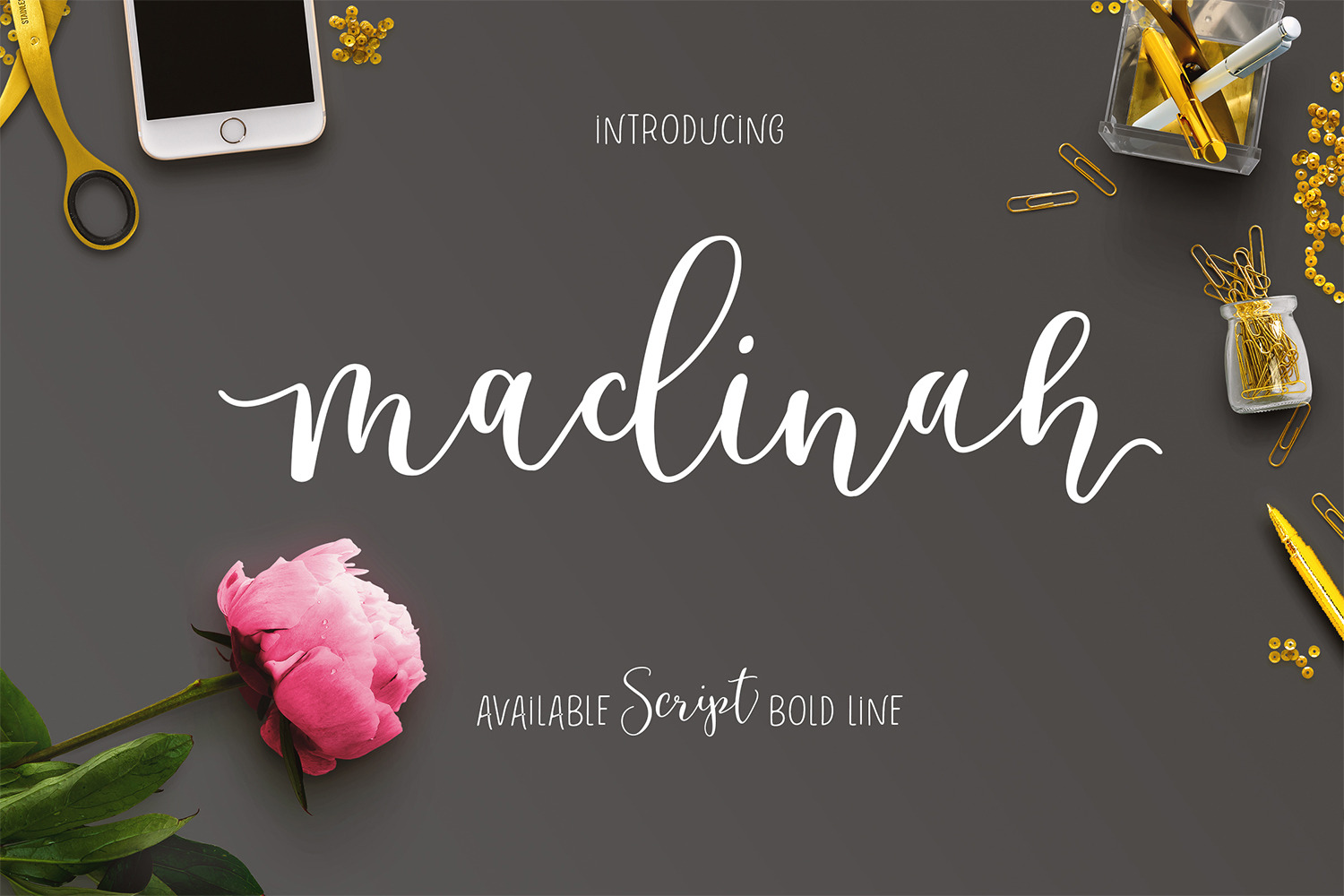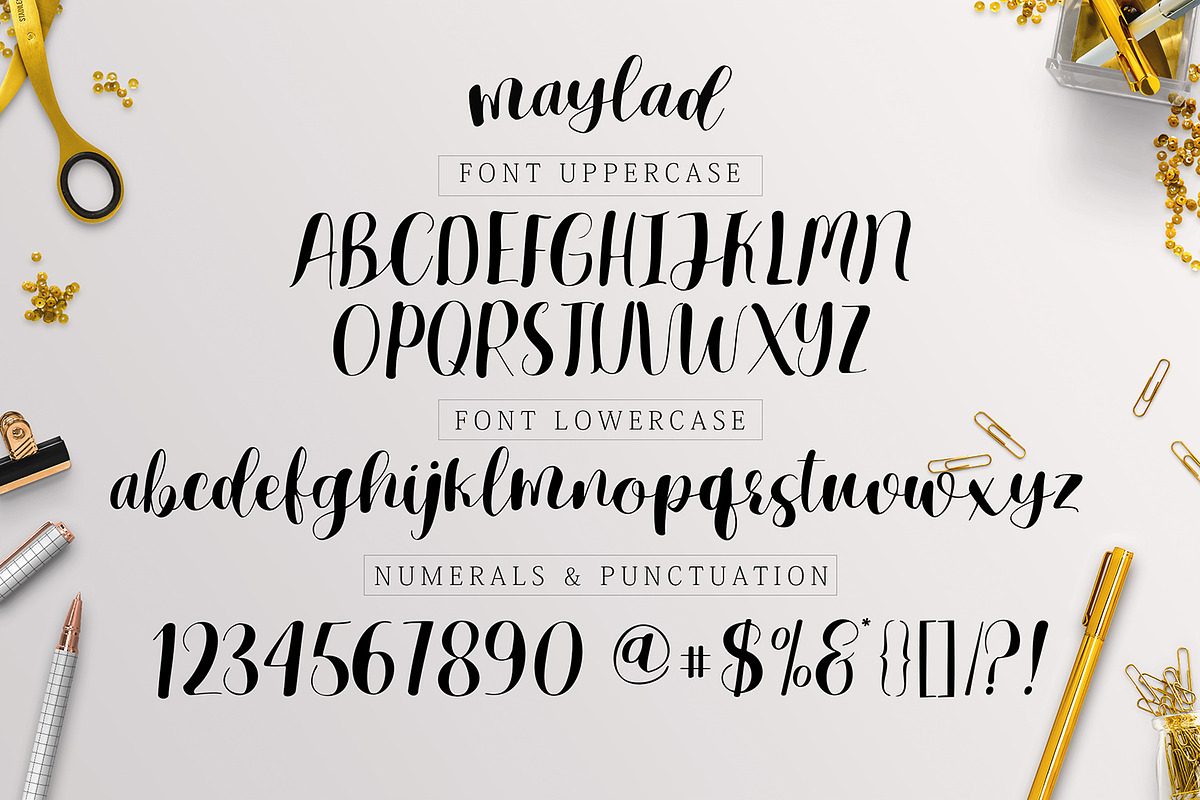
Madinah Font !
This is Madinah font collection available 1 package 3 models font latest you can get now! With pleasingly updated calligraphy hand variations that have been given an additional hand-written combination of brush and ink. This font will look beautiful on all designs, Wedding design, branding materials, blog titles, quotes and invitations, business cards.
- Stylistic Sets